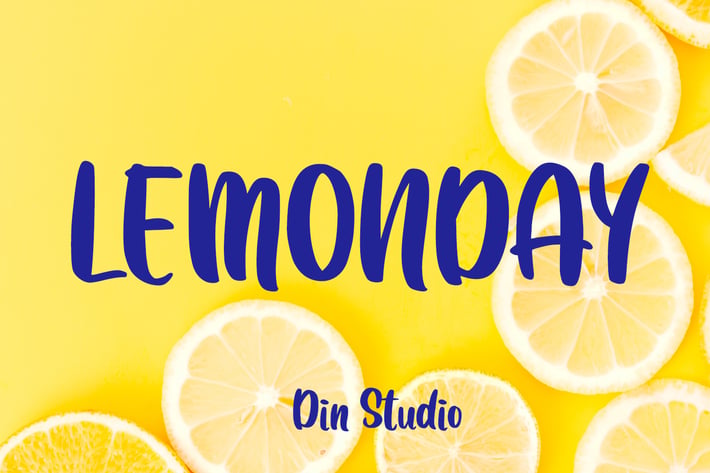
Lemonday - Display Font
Din-Studio
LEMONDAY font
Made from a chic brush, it will make your design more beautiful.
- Character Set A-z
- Accents (Multilingual characters)